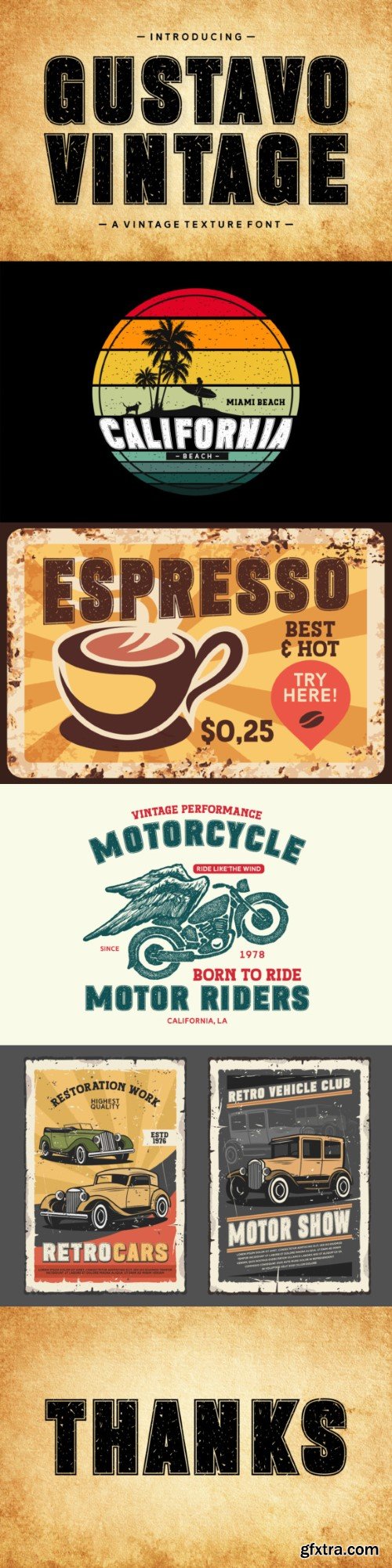
古斯塔夫 vintage 字体
Gustavo Vintage Font
Gustavo Vintage feels playfully nostalgic and delivers an incredible vintage aesthetic. Use this serif font to add that special retro touch to any design idea you can think of!